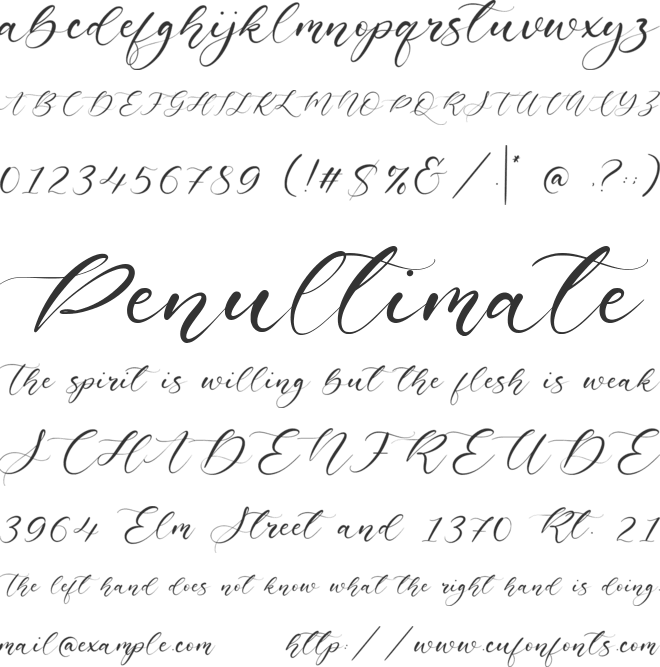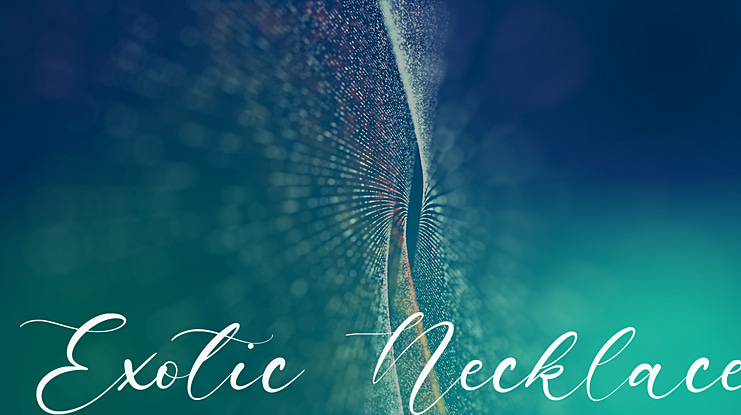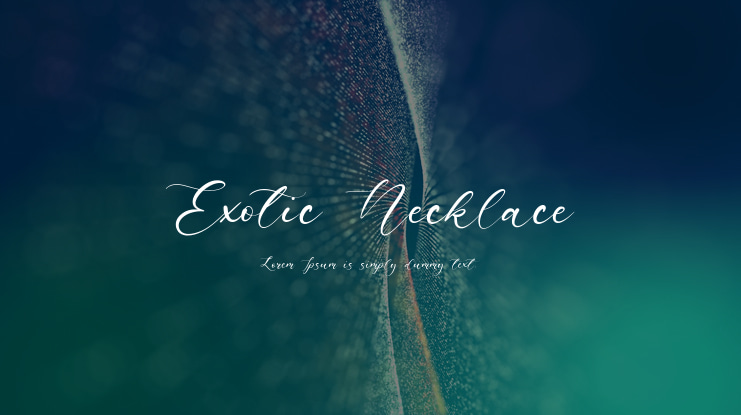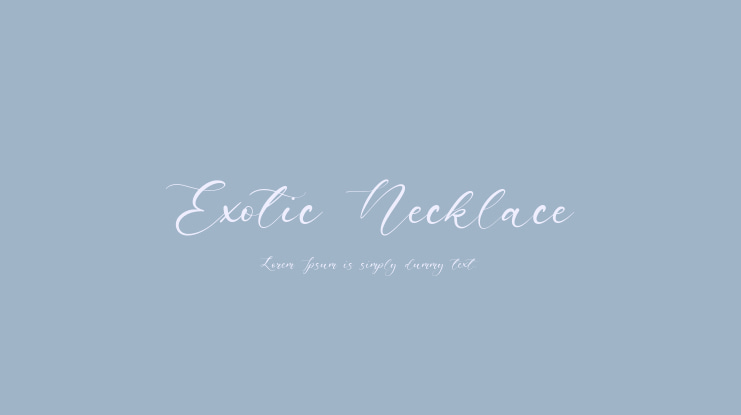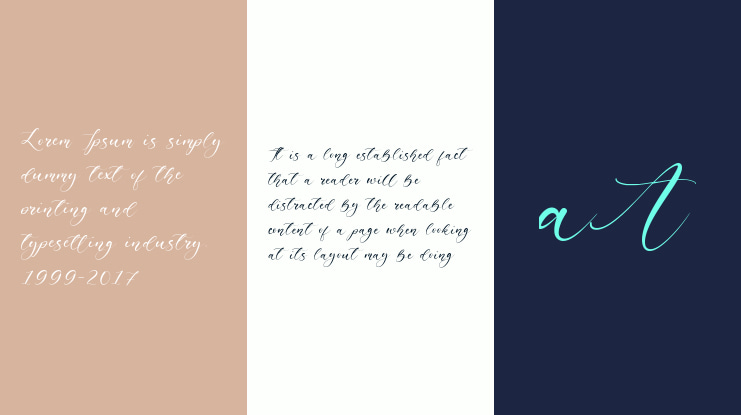
Exotic Necklace Font
Introducing by Balpirick Studio.
Proudly Present, Exotic Necklace Font.
Exotic Necklace is a Beautiful Handdrawn Font.
Exotic Necklace is perfect for product packaging, branding project, megazine, social media, wedding, or just used to express words above the background.